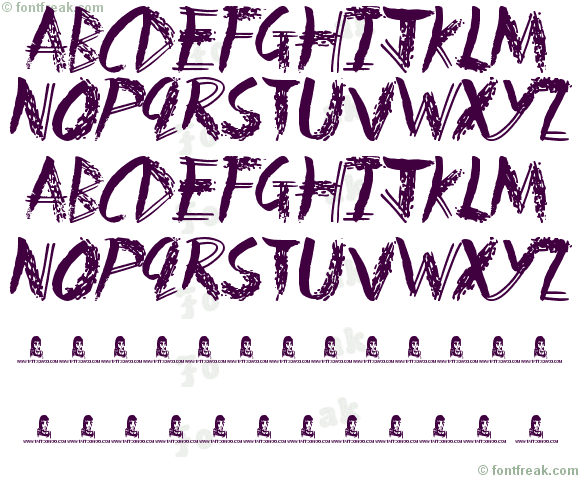
Fun House
The Fun House font, created by Jonathan S. Harris in 2013, is a distinctive display typeface that captures a playful and whimsical essence. As a decorative font, it features a unique hand-drawn style characterized by irregular strokes and a textured appearance, which adds a dynamic touch to any design project. The varying stroke weight gives the font a lively feel, while the slightly uneven spacing between letters enhances its artistic flair. Fun House is perfect for projects that require a touch of fun and creativity.
This font is an excellent choice for a variety of applications. It works beautifully for children's party invitations, where its playful nature can set the tone for a festive atmosphere. Additionally, it can add personality to movie posters, particularly for family-friendly films or comedies that seek to convey a light-hearted message. Restaurant menus, especially for casual dining establishments or ice cream shops, can benefit from the Fun House font, as it draws attention and invites customers to explore the offerings. Moreover, small business owners can utilize this font for branding purposes, helping to create a memorable logo that stands out.
Targeting graphic designers, small business owners, and content creators, Fun House provides an engaging option for those looking to infuse their work with originality. Its unique design allows for versatility while ensuring that it remains eye-catching and fun.